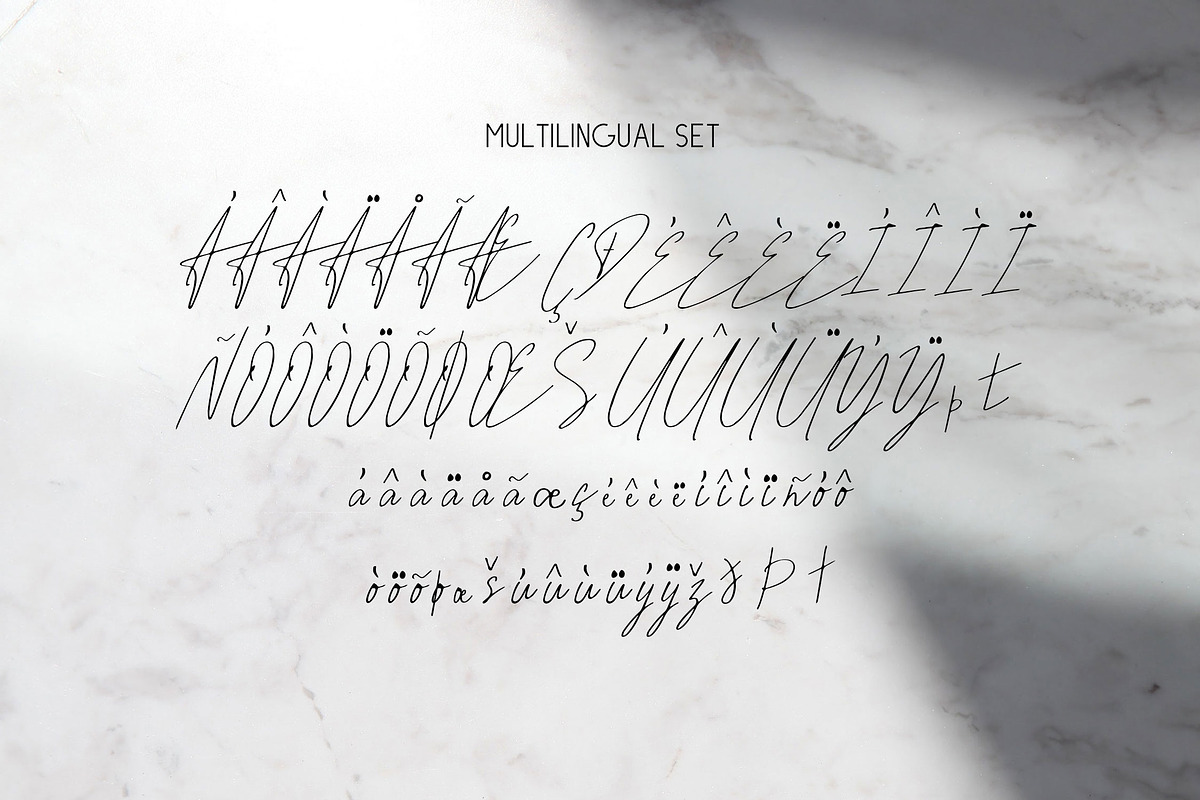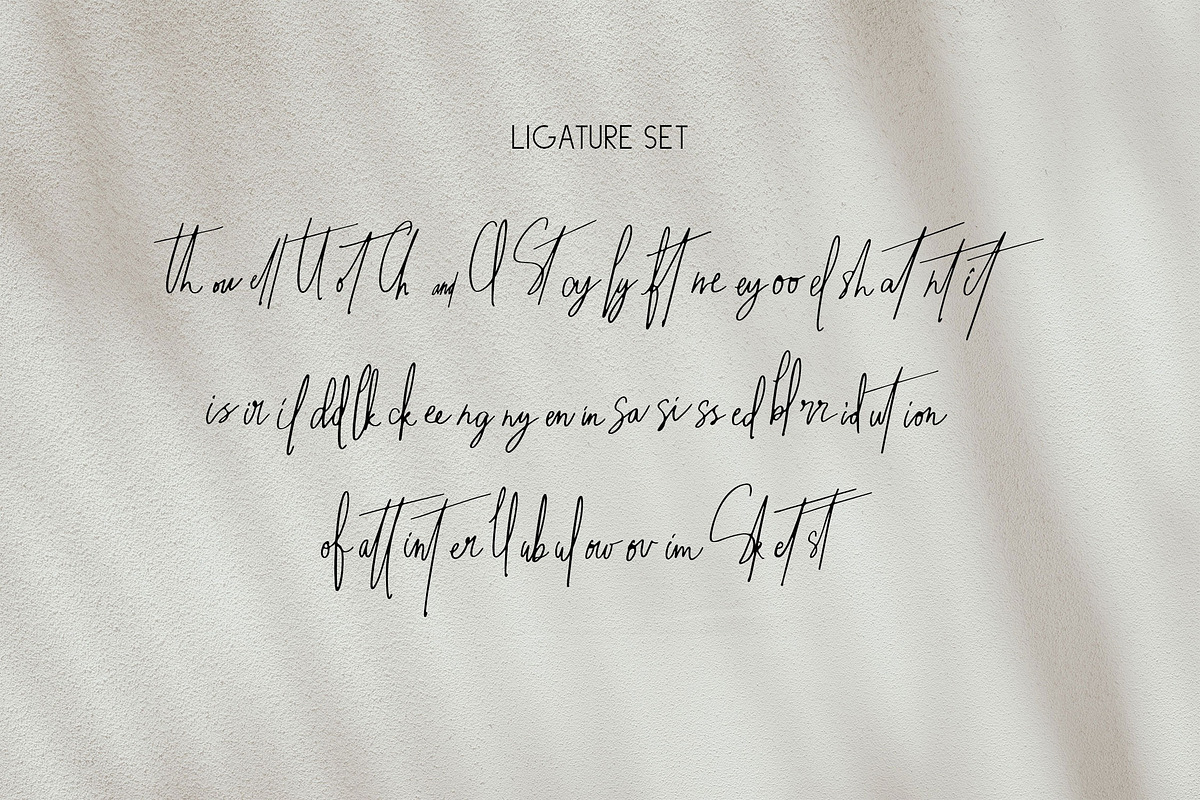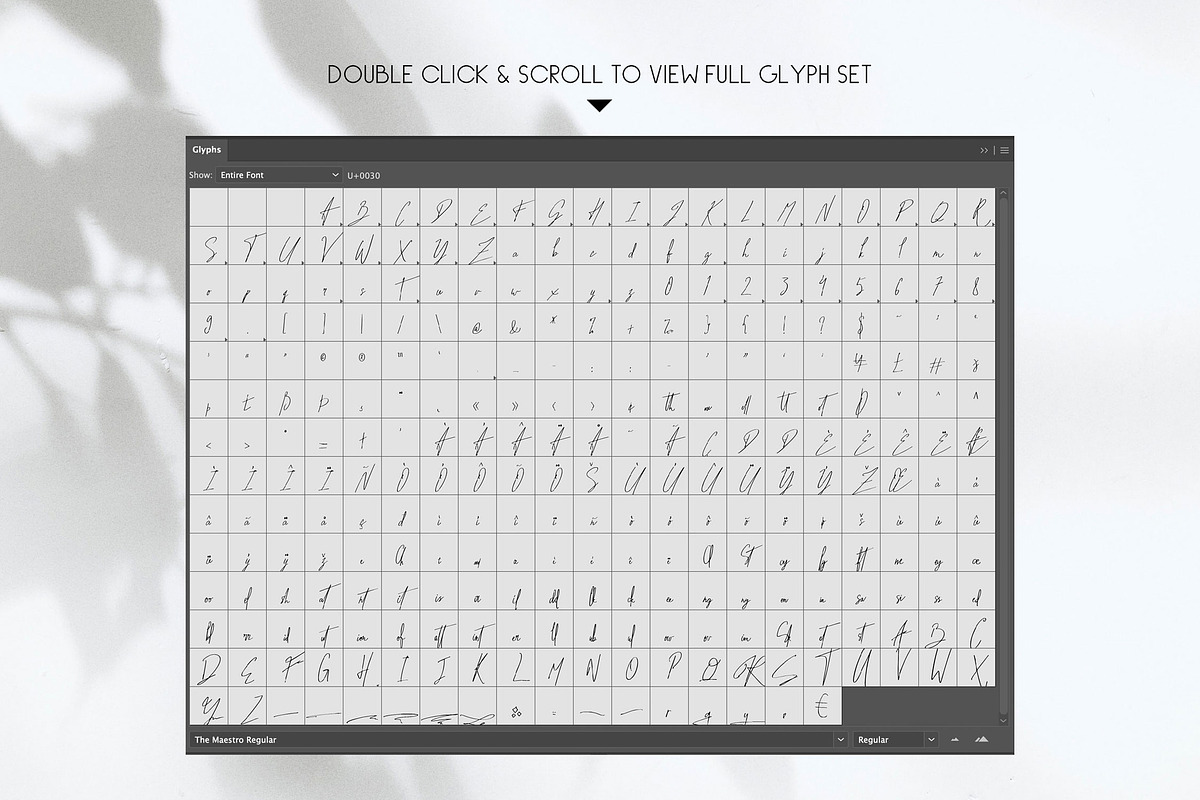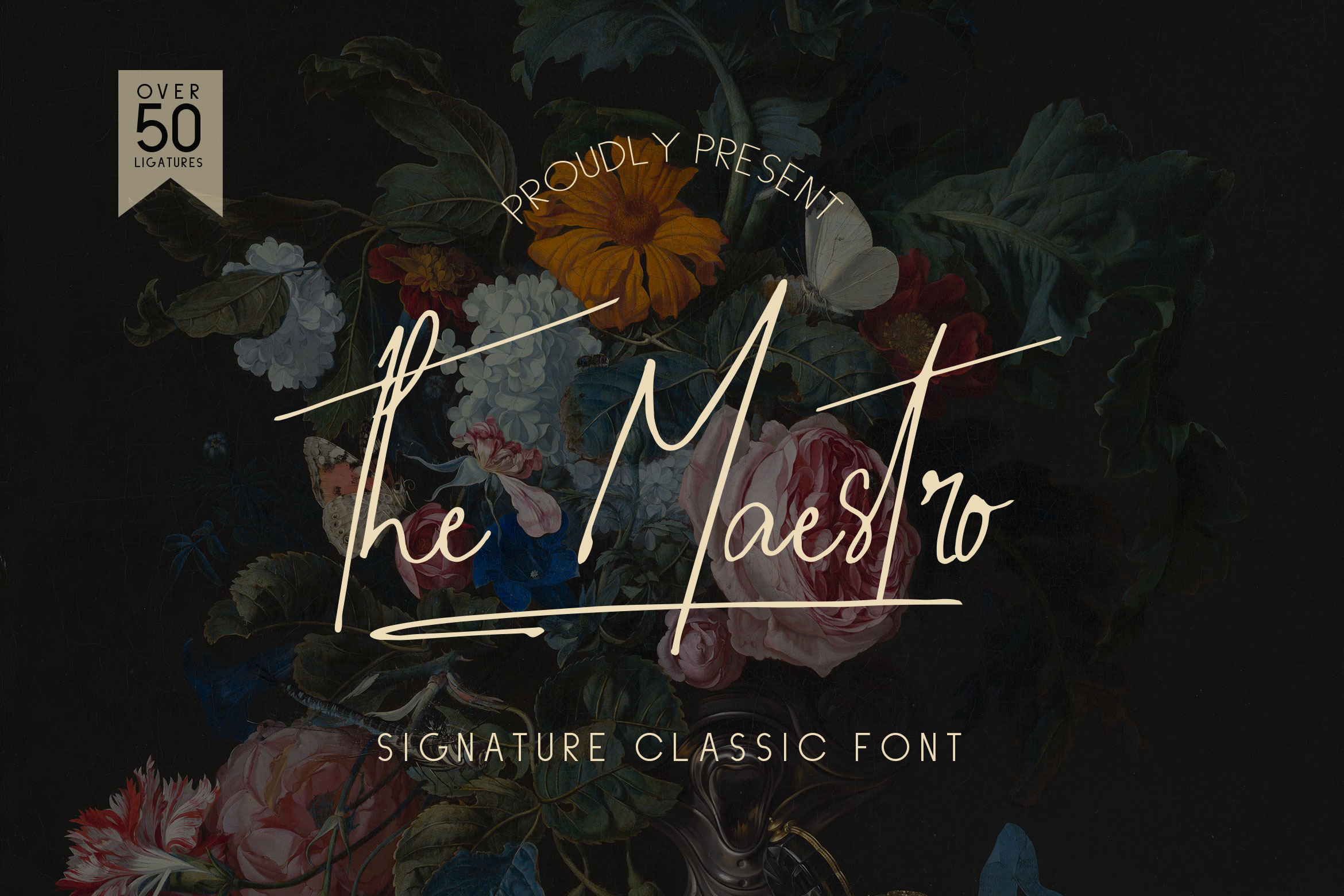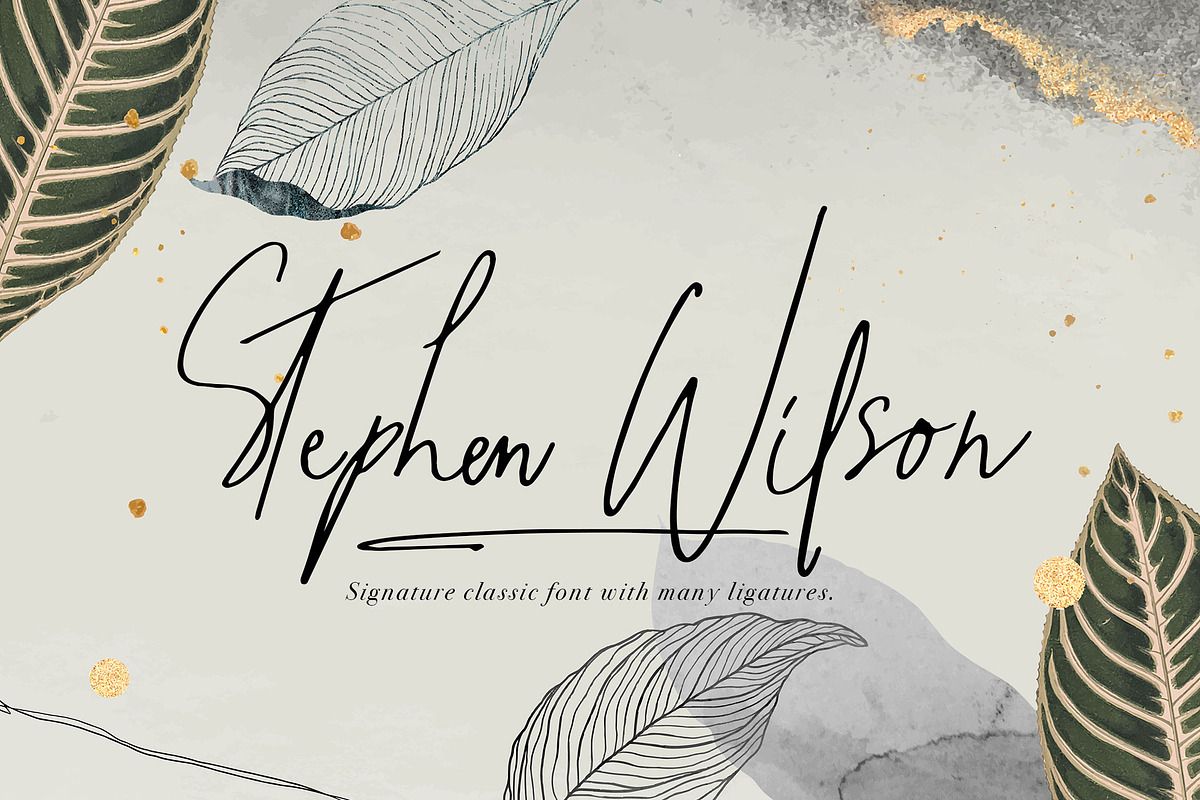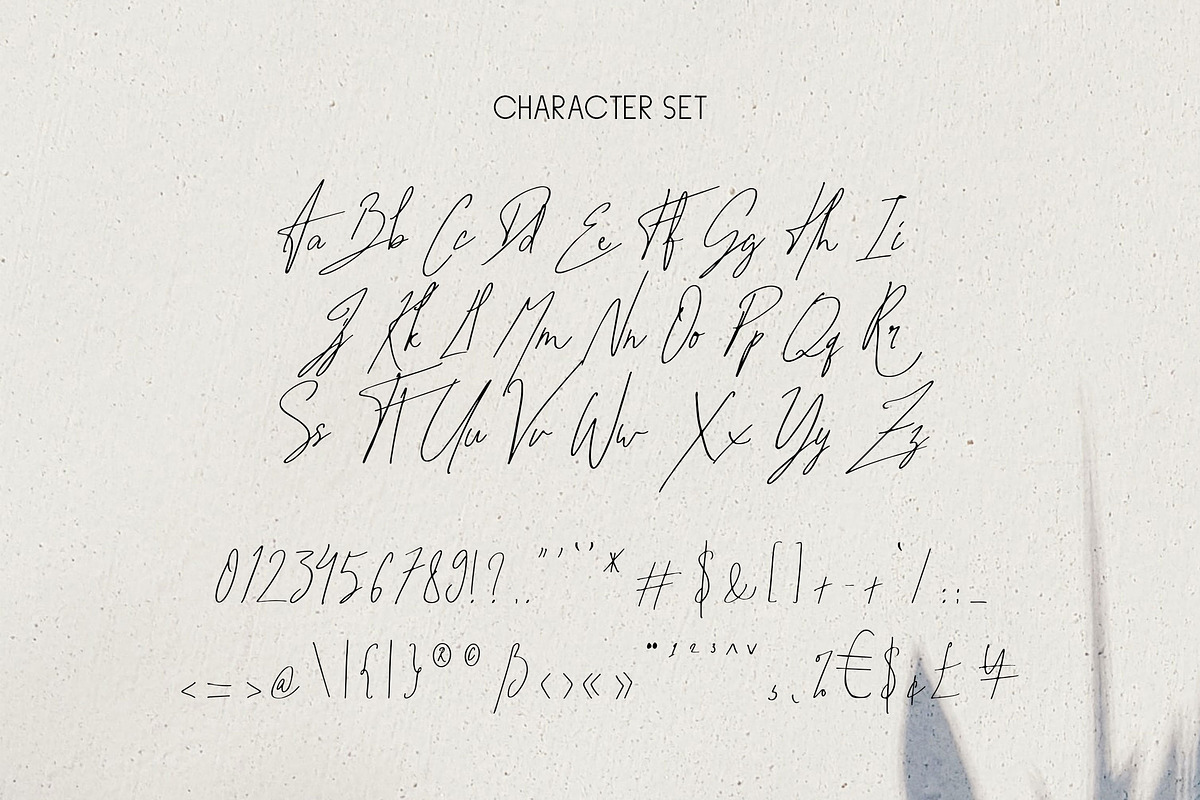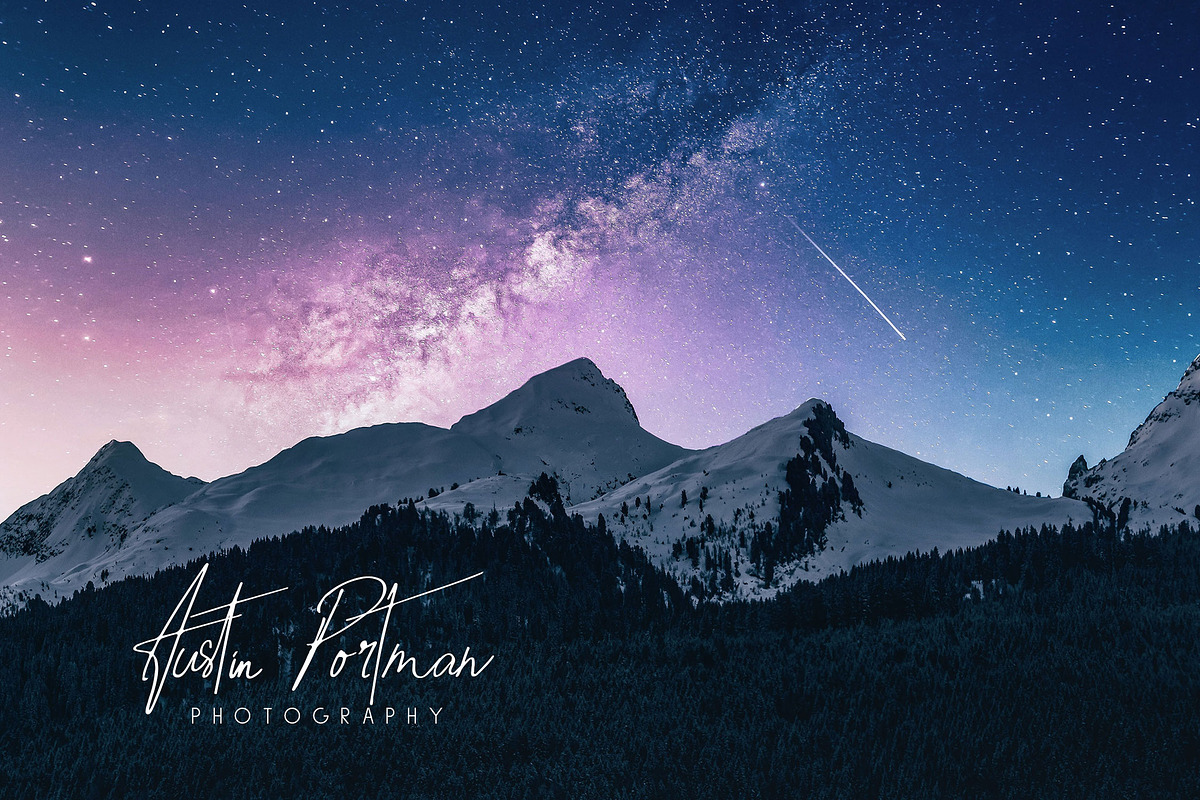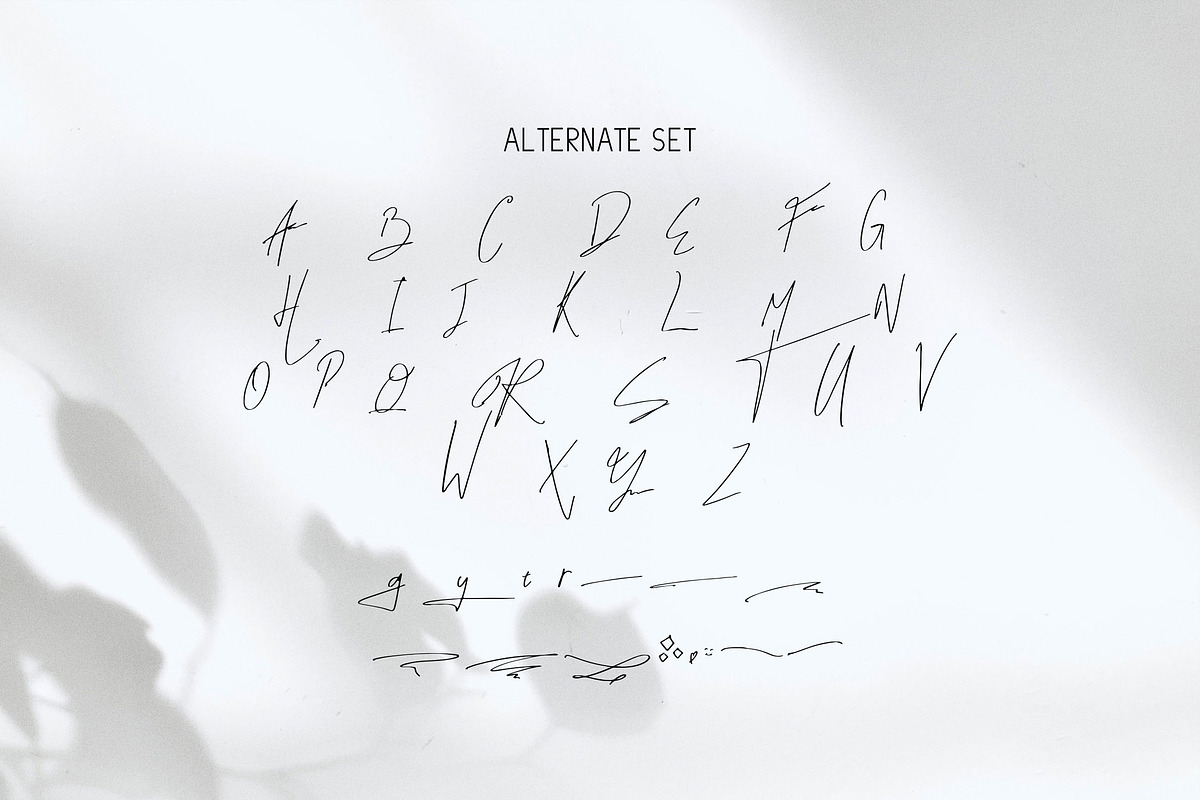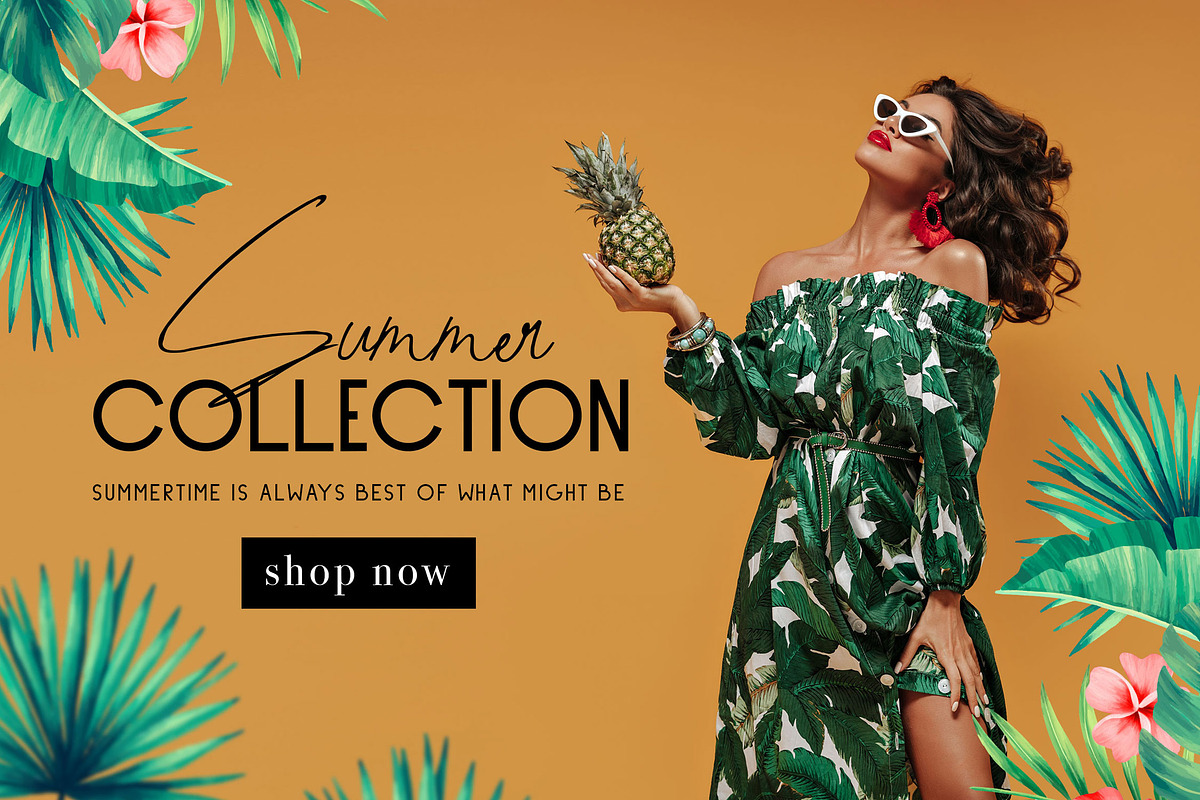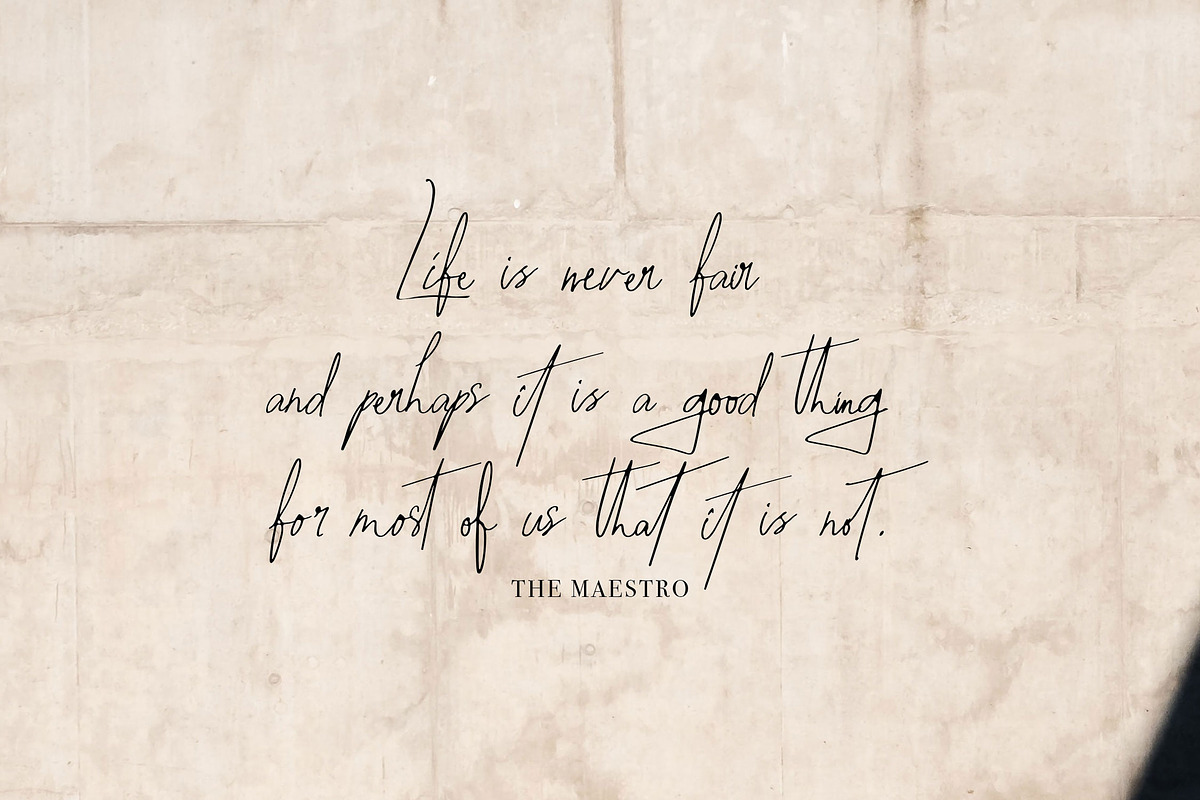
The Maestro - Signature Classic Font
Introducing The Maestro, is a Signature Classic Font has many purpose and suitable for signature logo, badges, logotype, fashion, luxury, invitation, wedding event, modern, classic modern, advertising and much more.
- Available Ligatures and Alternates
- Available Multilingual Set